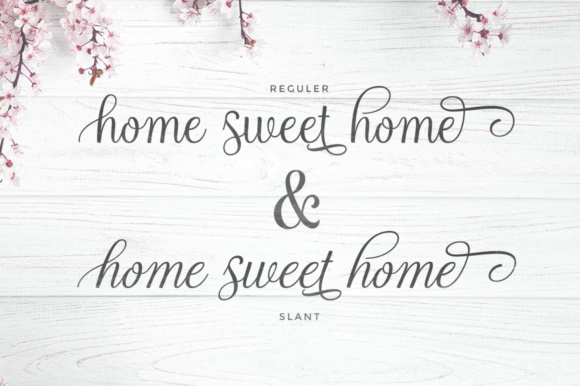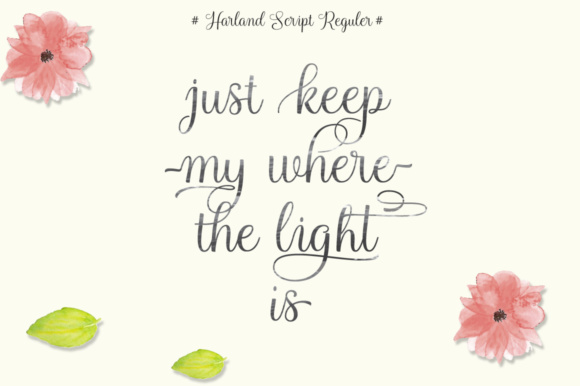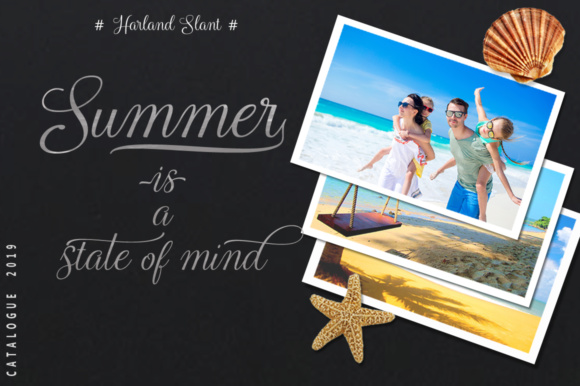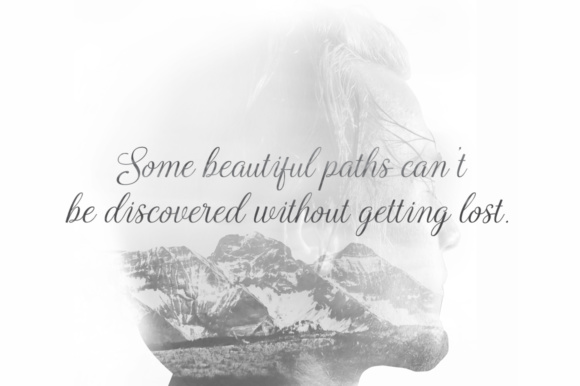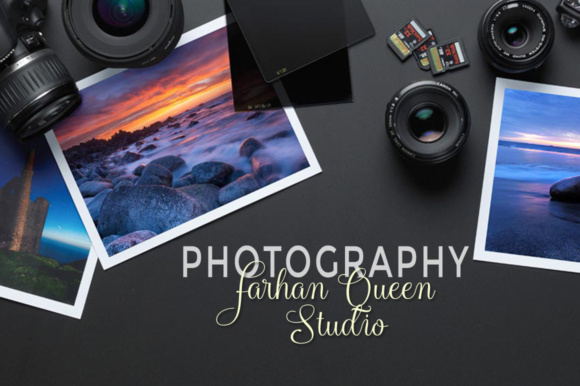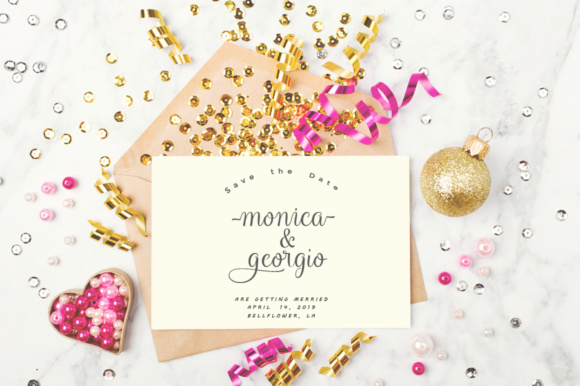
Introducing the Harland Script Font: Elevate Your Designs with Elegance and Sophistication
In the world of typography, script fonts hold a special place for their elegance, fluidity, and the personal touch they bring to any design project. Among the myriad of script fonts available, the Harland Script stands out as a beacon of modernity and sophistication. This fresh, modern script font is not just a typeface; it’s an experience. With its stunning calligraphy style, featuring decorative characters on a flowing baseline, the Harland Script is poised to revolutionize the way you approach design.
The Essence of Harland Script
The Harland Script is more than just a font; it’s a statement. It’s designed for those who appreciate the beauty of handwritten calligraphy but require the versatility and practicality of a digital font. Whether you’re a designer looking to add a personal touch to your branding projects, a crafter aiming to create bespoke invitations, or a business owner seeking to elevate your brand’s visual identity, the Harland Script is the perfect companion.
Key Features of Harland Script
• Modern Calligraphy Style: The Harland Script boasts a contemporary calligraphy style that is both fresh and timeless. Its unique blend of classic calligraphic elements with a modern twist makes it stand out in the world of script fonts.
• Decorative Characters: One of the standout features of the Harland Script is its collection of decorative characters. These characters add an extra layer of elegance and sophistication to any text, making your designs truly unforgettable.
• Flowing Baseline: The font features characters on a flowing baseline, which gives it a natural, handwritten feel. This flowing design ensures that the text appears fluid and dynamic, adding to the overall aesthetic appeal of your designs.
• Versatility: The Harland Script is incredibly versatile. It’s suitable for a wide range of design projects, including invitations, greeting cards, branding, packaging, and much more. Its adaptability makes it an invaluable asset in any designer’s toolkit.
Applications of Harland Script
The possibilities with the Harland Script are endless. Here are a few ideas to get you started:
• Wedding Invitations and Stationery: Add a touch of elegance and romance to your wedding invitations, save-the-dates, and stationery with the Harland Script.
• Branding and Logo Design: Use the Harland Script to create a distinctive and memorable brand identity. Its unique style can help your brand stand out in a crowded market.
• Greeting Cards: Whether it’s for a birthday, anniversary, or holiday, the Harland Script can help you create greeting cards that are both heartfelt and visually stunning.
• Packaging Design: Elevate your product packaging with the Harland Script. Its modern calligraphy style can add a touch of luxury and sophistication to your products.
Why Choose Harland Script?
In a sea of script fonts, the Harland Script offers a unique combination of style, versatility, and elegance. Here are a few reasons why it should be your go-to script font:
• Unique Style: The Harland Script offers a fresh perspective on traditional calligraphy, making it perfect for designers looking for something new and exciting.
• Ease of Use: Designed with usability in mind, the Harland Script is easy to incorporate into any design project, regardless of your level of expertise.
• High-Quality Design: Crafted with attention to detail, the Harland Script ensures that your designs look professional and polished.
Author Cooldesignlab
The Harland Script font is a game-changer for designers and crafters alike. Its modern calligraphy style, decorative characters, and flowing baseline make it the perfect tool for adding a touch of elegance and sophistication to any design project. Whether you’re working on invitations, branding, greeting cards, or packaging, the Harland Script is sure to elevate your designs to new heights. Embrace the beauty and versatility of the Harland Script and discover a world of creative possibilities.